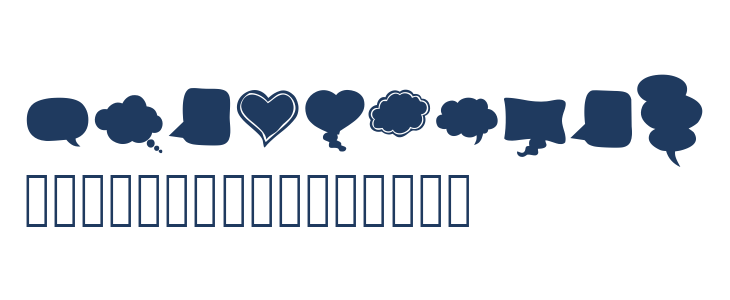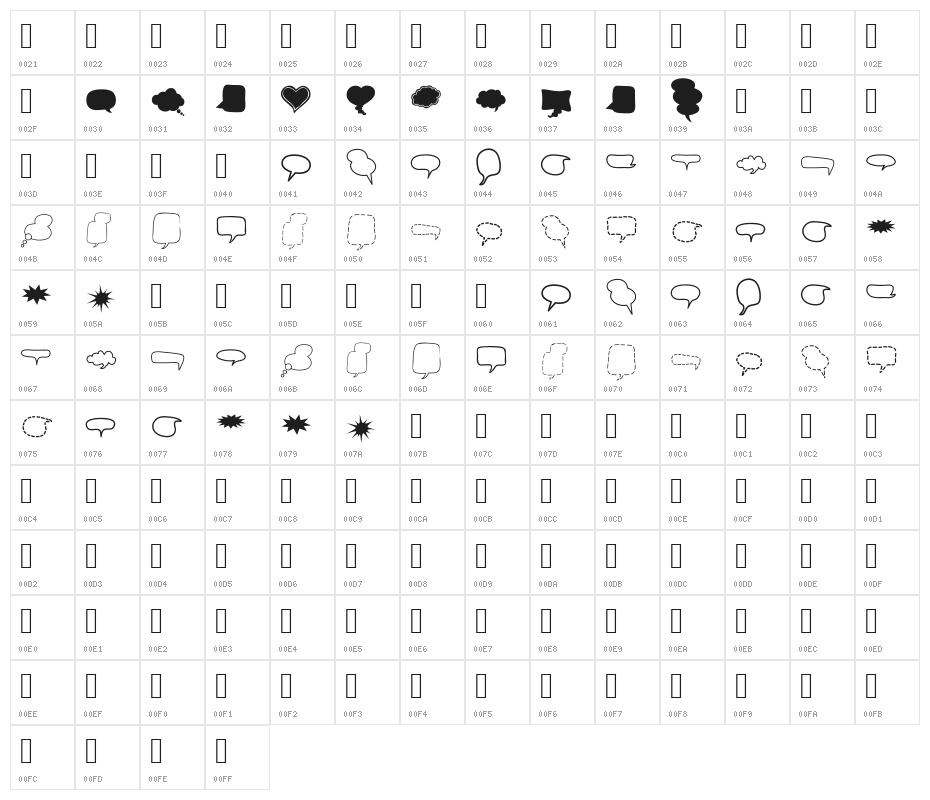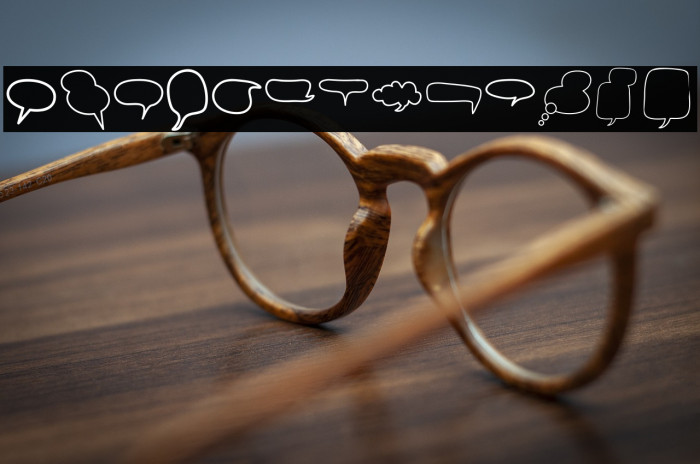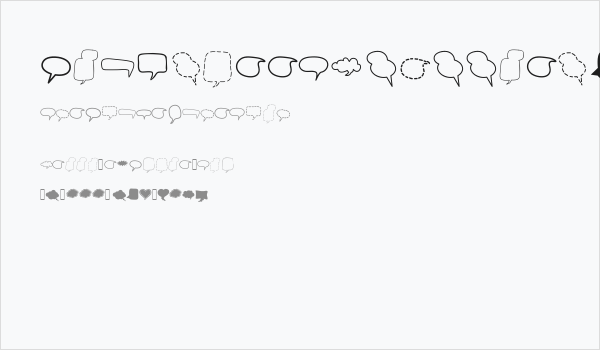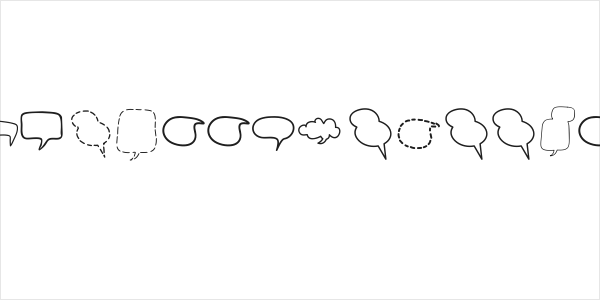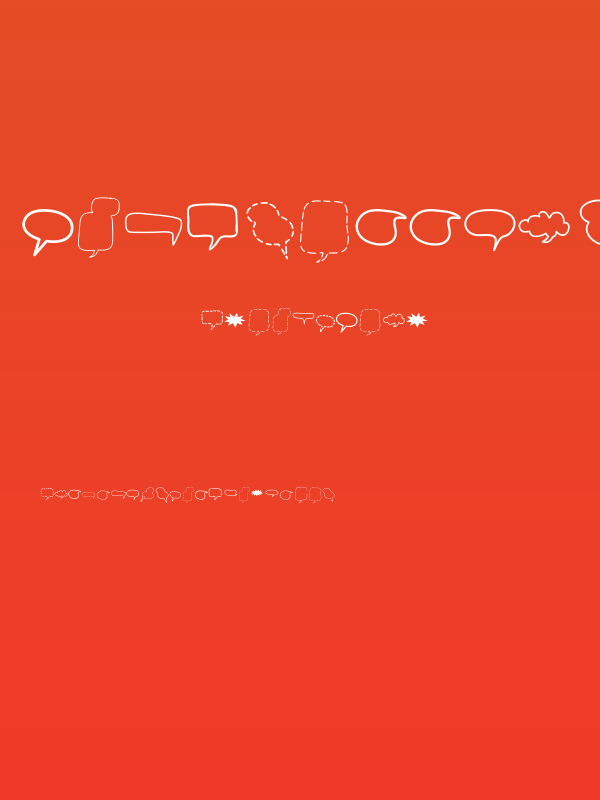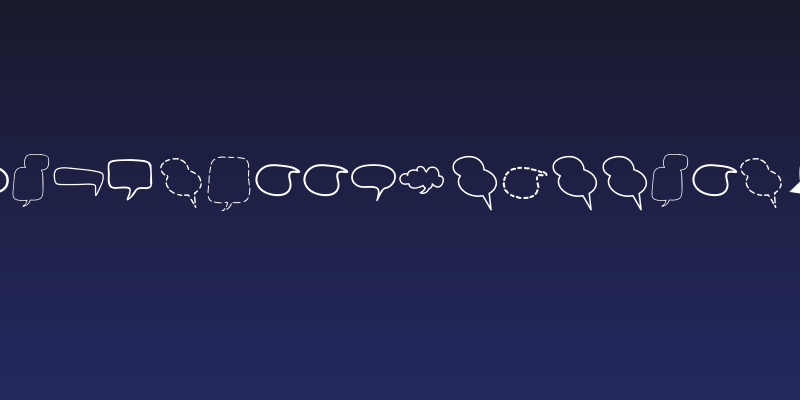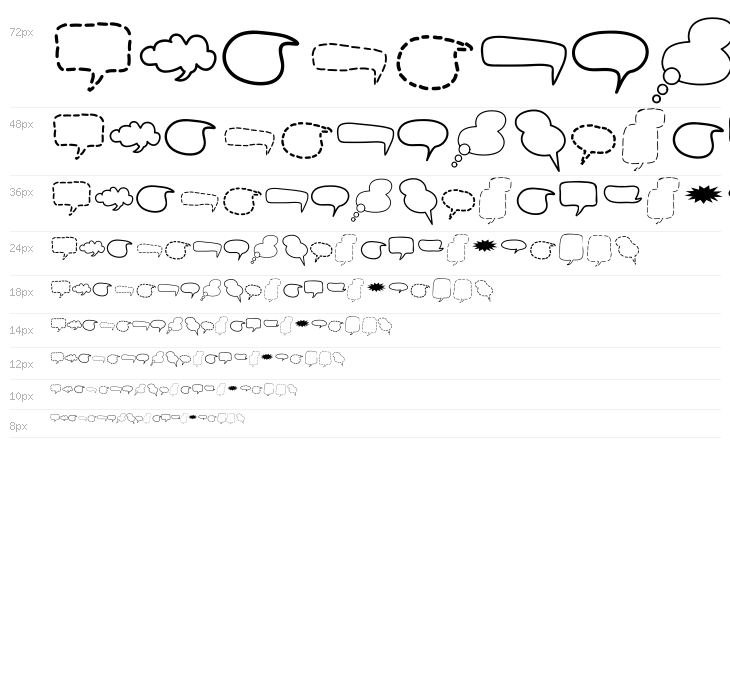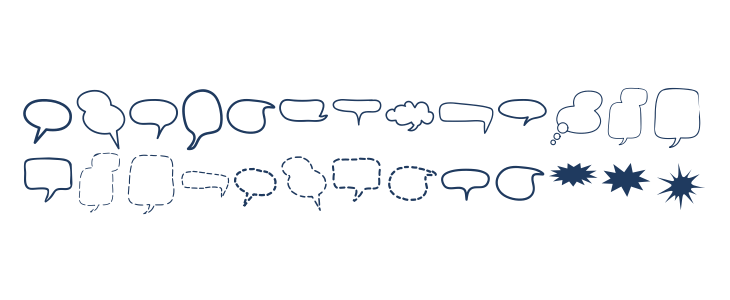
Alin Speech Bubbles 2 Font
Alin Speech Bubbles 2 Description
| Overall Style | Playful, Comic, Decorative |
| Use Case | Icons, Decorative elements, Comic dialogue, Visual storytelling |
| Proposed Projects | Comic books, graphic novels, children's books, playful posters, social media graphics, educational materials. |